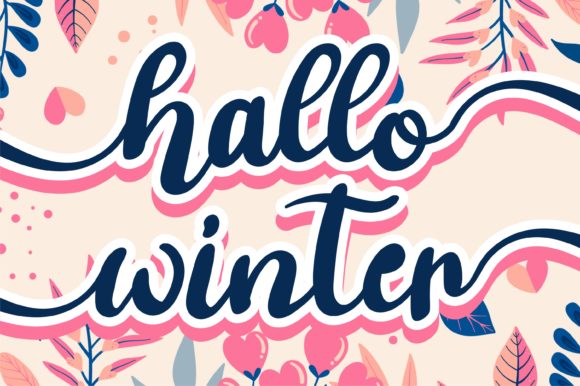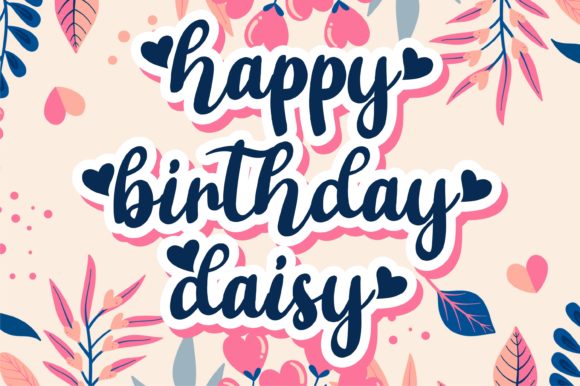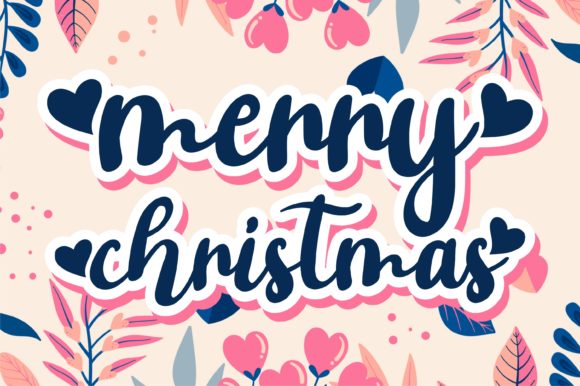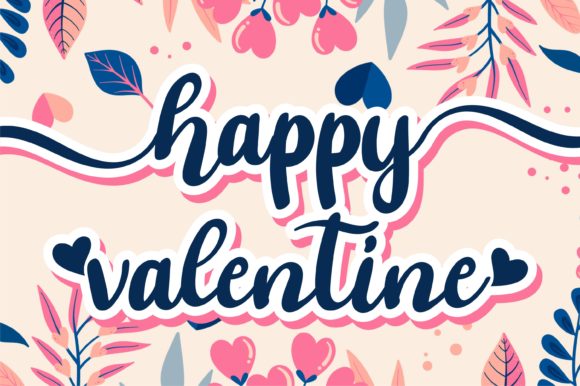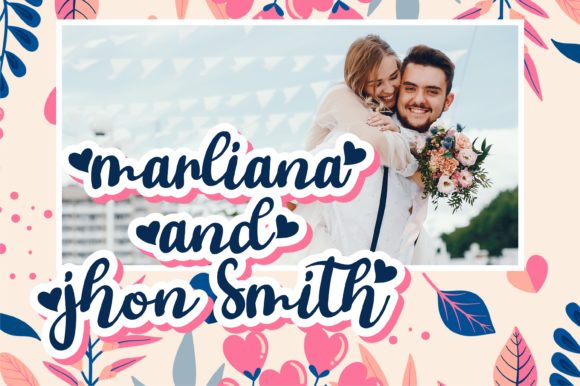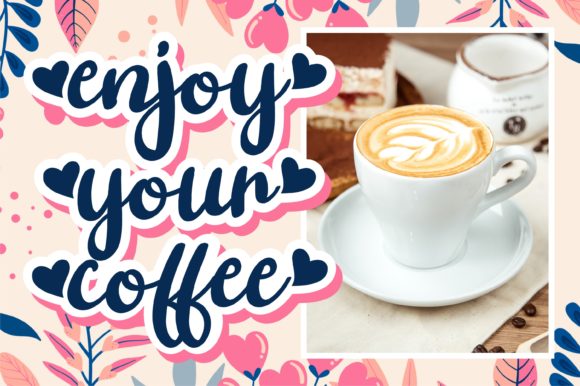
The Art of Handwritten Beauty: Introducing Ashifa Font
There’s something magical about the feeling of putting pen to paper, watching words flow onto the page, and creating something truly unique. As designers, we’ve all been there – brainstorming ideas, sketching out concepts, and searching for that perfect font to bring our vision to life. And that’s exactly where Ashifa Font comes in – a romantic and beautiful handwritten font that adds a touch of elegance to any design.
Ashifa Font is perfect for adding a personal, handwritten feel to wedding invitations, thank you cards, quotes, and more. Its PUA encoded design makes it easy to access all of the glyphs and swashes, giving you endless creative possibilities. Whether you’re a seasoned designer or just starting out, Ashifa Font is a valuable tool to have in your arsenal – and with its versatility, it’s sure to become a go-to choice for any project that requires a handwritten touch.
- Unique Characteristics: Ashifa Font features a unique blend of modern and traditional elements, with intricate details and elegant lines, making it perfect for luxury and high-end branding.
Ashifa Font Review
Overall, I’m quite impressed with the Ashifa Font. The first thing that caught my attention was its beautiful, elegant design ✨. The font is perfect for creating a sophisticated and modern look, which makes it ideal for various applications such as magazines, advertisements, and even branding materials. The font’s high x-height and distinctive letterforms make it highly legible, even at smaller font sizes.
Some of the features that work well in the Ashifa Font include:
- High legibility, making it suitable for body text ✨
- Unique and distinctive letterforms that add a touch of elegance ✨
- Works well in both print and digital applications ✨
- Available in a range of weights, from light to bold ✨
However, I did encounter a few limitations ⚠️:
- The font may not be the best choice for display headlines, as it can be quite dense ⚠️
- The italic styles may not be as smooth as the roman styles ⚠️
Overall, I’d highly recommend the Ashifa Font to anyone looking for a sophisticated and elegant font for their design projects. With its unique design and high legibility, it’s a great addition to any font collection.
Tips for Getting the Most Out of Ashifa Font
Ashifa Font is ideal for creating elegant and sophisticated designs. To get the most out of it, use it for headings and titles, and pair it with a clean and simple font for body text.
Experiment with different font sizes and styles to create visual hierarchy and emphasis.
Ashifa Font is perfect for:
- Magazine and brochure layouts
- Wedding and event branding